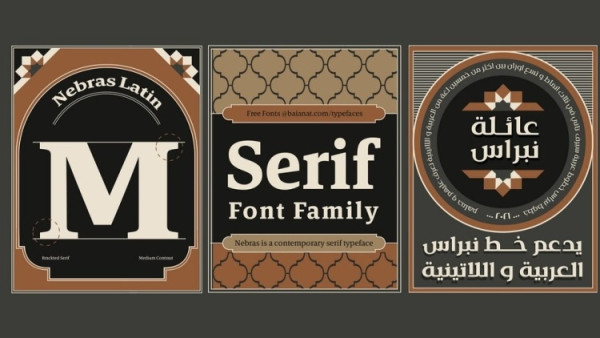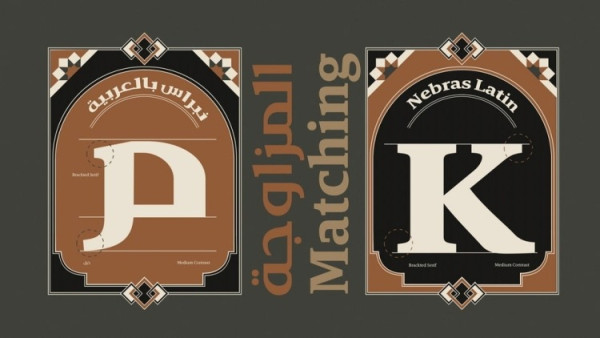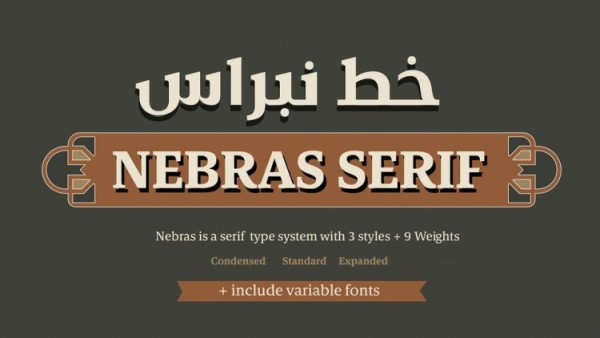
Nebras Font
Nebras Font is a contemporary serif typeface that is curved and round, but also straight and edgy with its alternates. It comes in 3 different widths and 9 wights supporting +50 languages ranging from the more economical yet legible compressed styles, to the opulent bold and expanded weights.
Now you can use Nebras in packaging designs, branding, advertising, and any media platform where you want something contrasted, sharp yet elegant and have a sense of style, it is also suitable either in small body copies and headlines.